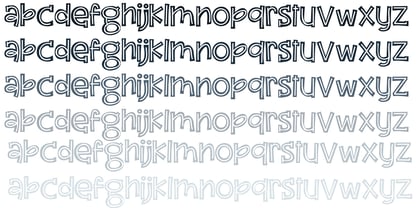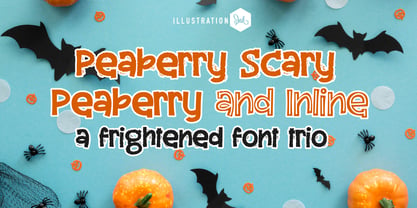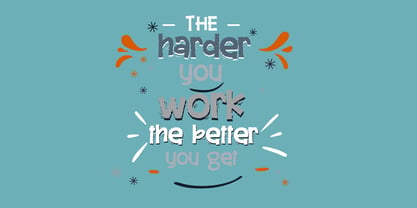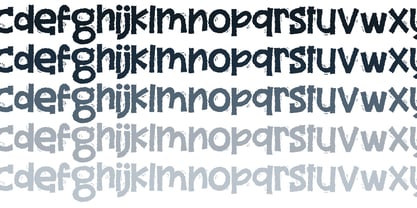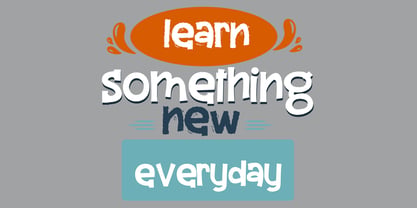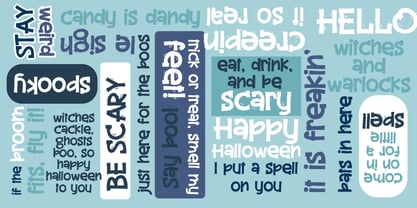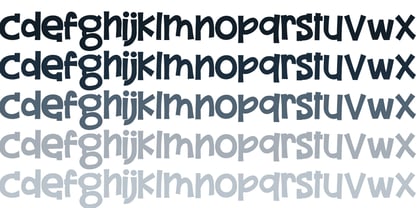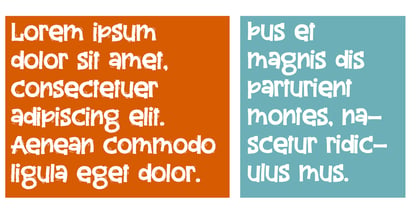
ZP Peaberry
by Illustration Ink
The ZP Peaberry Font Family was designed by Illustration Ink and published by Illustration Ink. ZP Peaberry contains 8 styles and family package options. More about this family
This fun font duo is a cute, hand-crafted sans serif with a youthful feel and its scary counterpart with frightened shivers throughout. Hand-crafted fonts can be either formal or informal, and they can be used for a variety of purposes. Some of the characteristics of handwritten fonts include: The letters are not perfectly uniform in size or shape. There may be slight variations in the spacing between letters and words. The font may have a "wiggly" or "squiggly" appearance. The font may be difficult to read at small sizes. Handwritten fonts can be a great way to add a casual touch to your designs. They can also be used to create a sense of nostalgia or whimsy. However, it is important to choose a handwritten font that is appropriate for the project you are working on. A formal handwritten font may not be appropriate for a casual invitation, while an informal handwritten font may not be appropriate for a corporate document.
ZP Peaberry